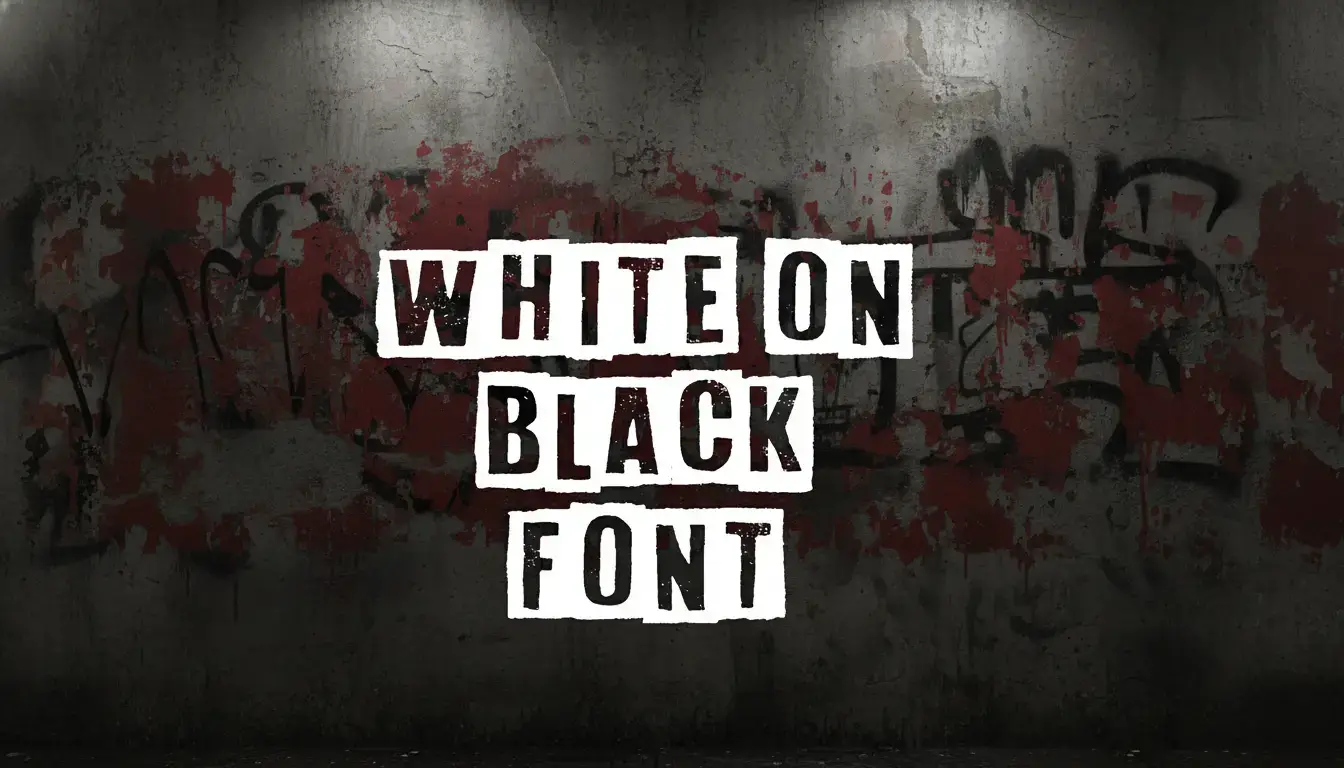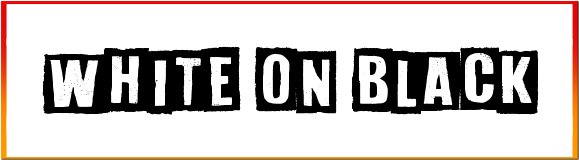
White On Black Font
White On Black is a fancy font made by IMAGEX. Bold and full of character, it's built to stand out rather than blend in. You can download it for free and test it with your own words in the preview above.
- Designer: IMAGEX
White On Black covers the full alphabet in upper and lowercase, plus all ten numbers, so you can set names, dates and prices without switching fonts. Everyday marks like &, !, ? and @ are there too. Thanks to its accented letters, it also works for Spanish, French, German, Portuguese and Italian, not just English.
Think of White On Black for posters, logos and eye-catching headlines. Use it for one standout word or headline and let simpler fonts handle the rest.
Yes. White On Black includes the accented letters needed for Spanish, French, German, Portuguese and Italian, so it works for more than just English.